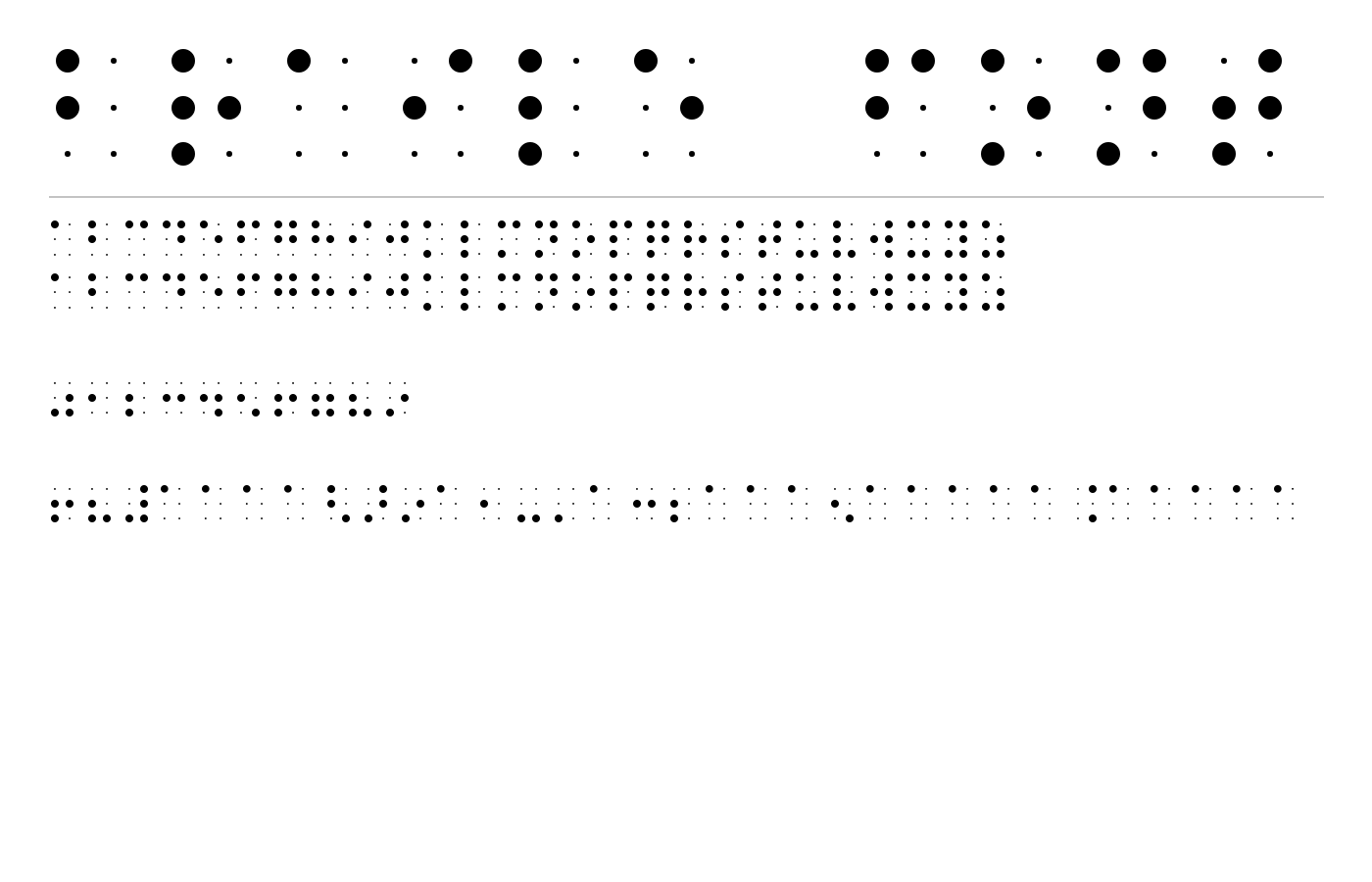
Braile font is a unique, tactile-inspired typeface that visually represents the Braille system through simple, evenly spaced dots arranged in a grid. Its minimalist and functional design conveys accessibility and inclusivity, making it ideal for projects focused on education, awareness, and social impact. This font works best in creative contexts like educational materials, awareness campaigns, and innovative branding where a distinctive, meaningful aesthetic is desired.
Braile font
About Braile font